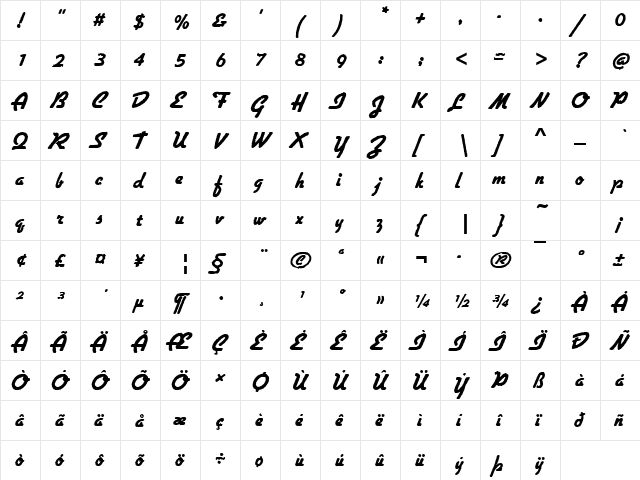
GilliesAntDExtBol Regular
Design Context for GilliesAntDExtBol Typeface
GilliesAntDExtBol is a composed and adaptable typeface that performs quietly and consistently across a wide range of design contexts.